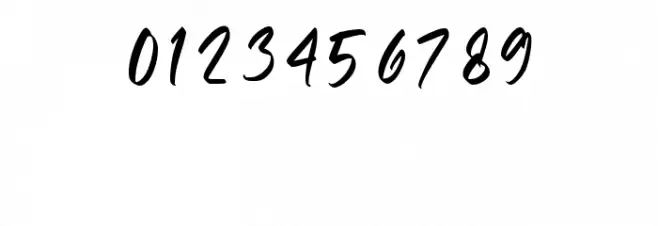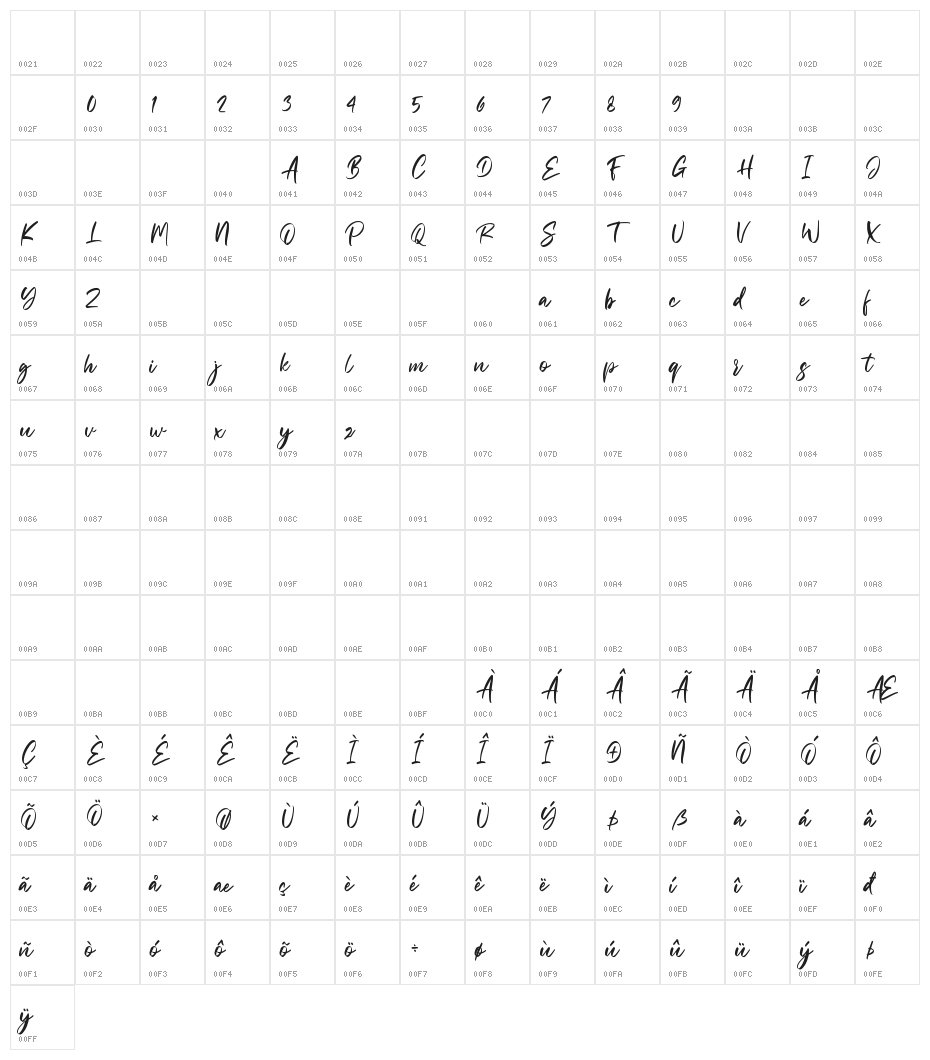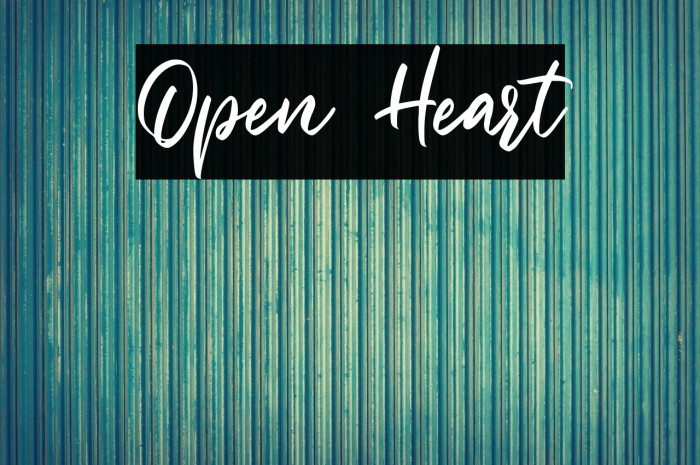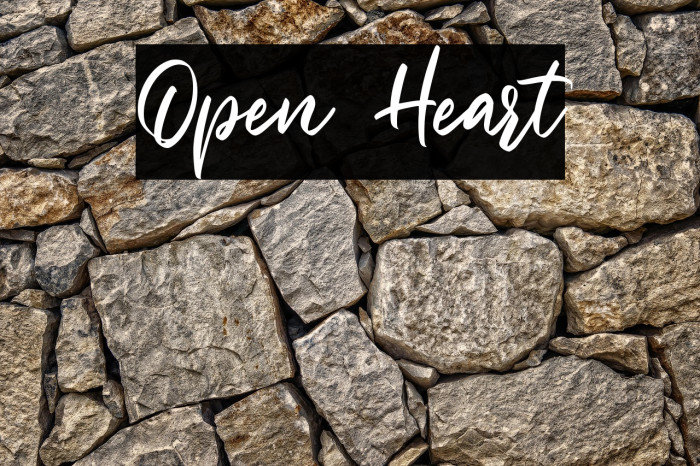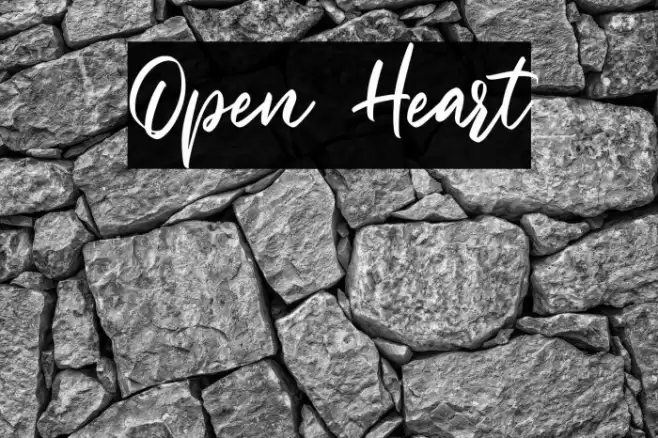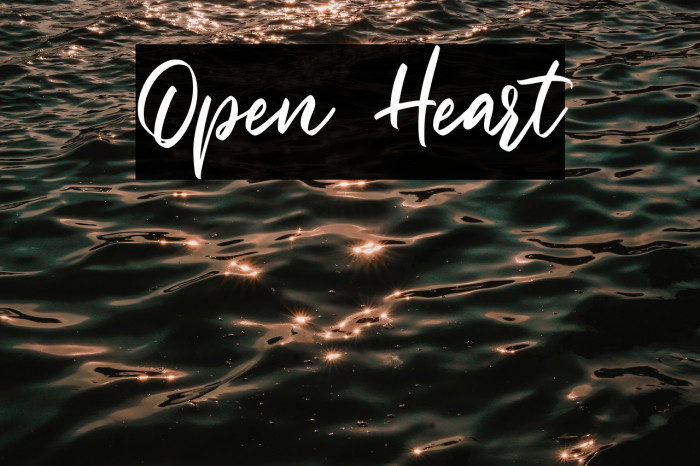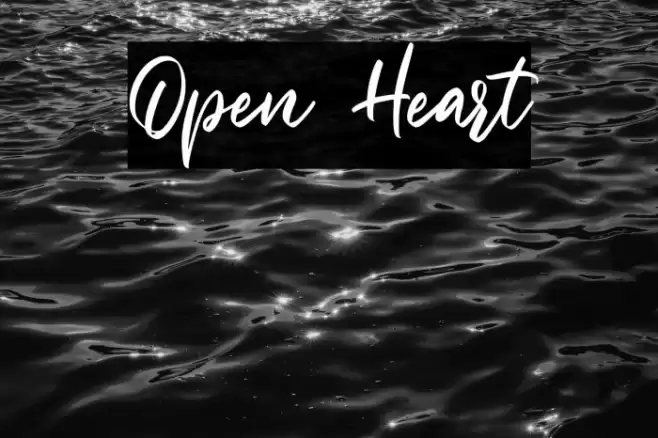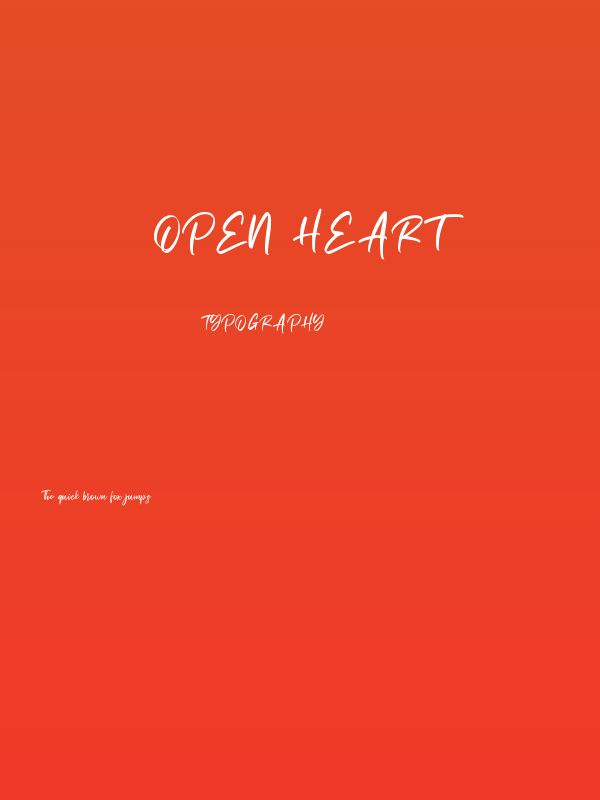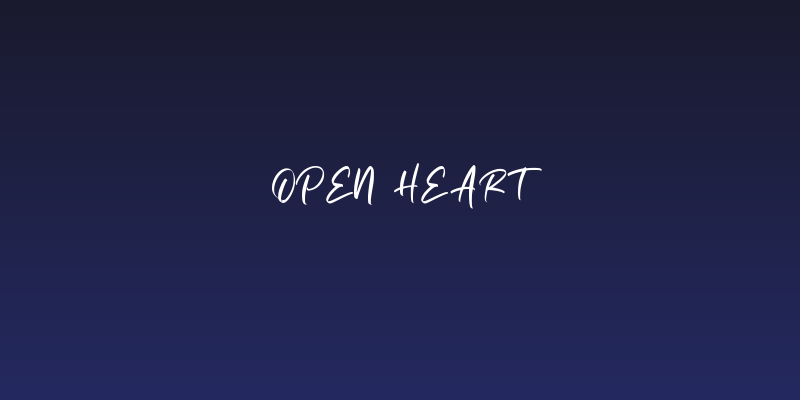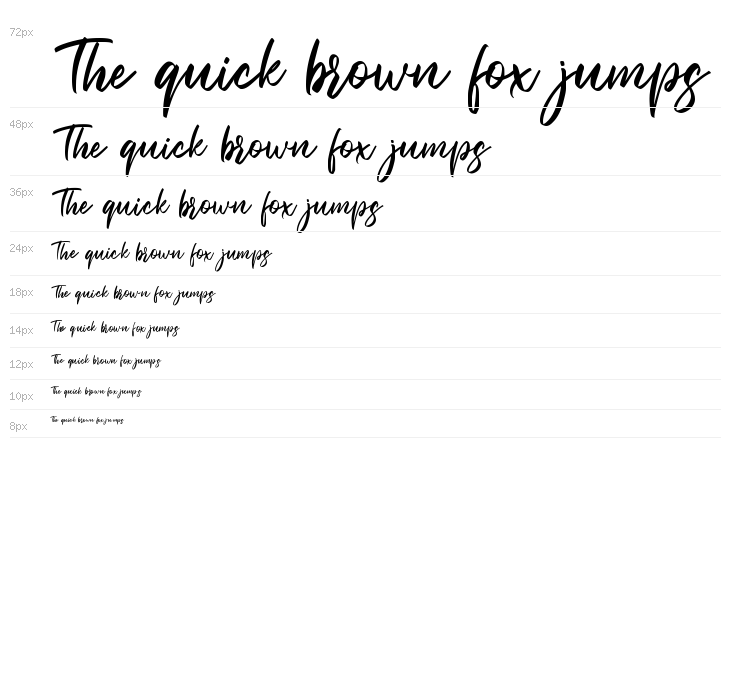
Open Heart Font
Open Heart Description
This font features a lively and expressive script style, characterized by its fluid and dynamic strokes. The letters are connected in a cursive manner, giving it a handwritten feel that is both elegant and casual. The uppercase letters are bold and slightly slanted, while the lowercase letters maintain a consistent flow with varying stroke widths. The numbers are designed to match the overall style, with a playful yet sophisticated appearance. This font is perfect for adding a personal touch to any design, making it ideal for invitations, greeting cards, and branding projects.